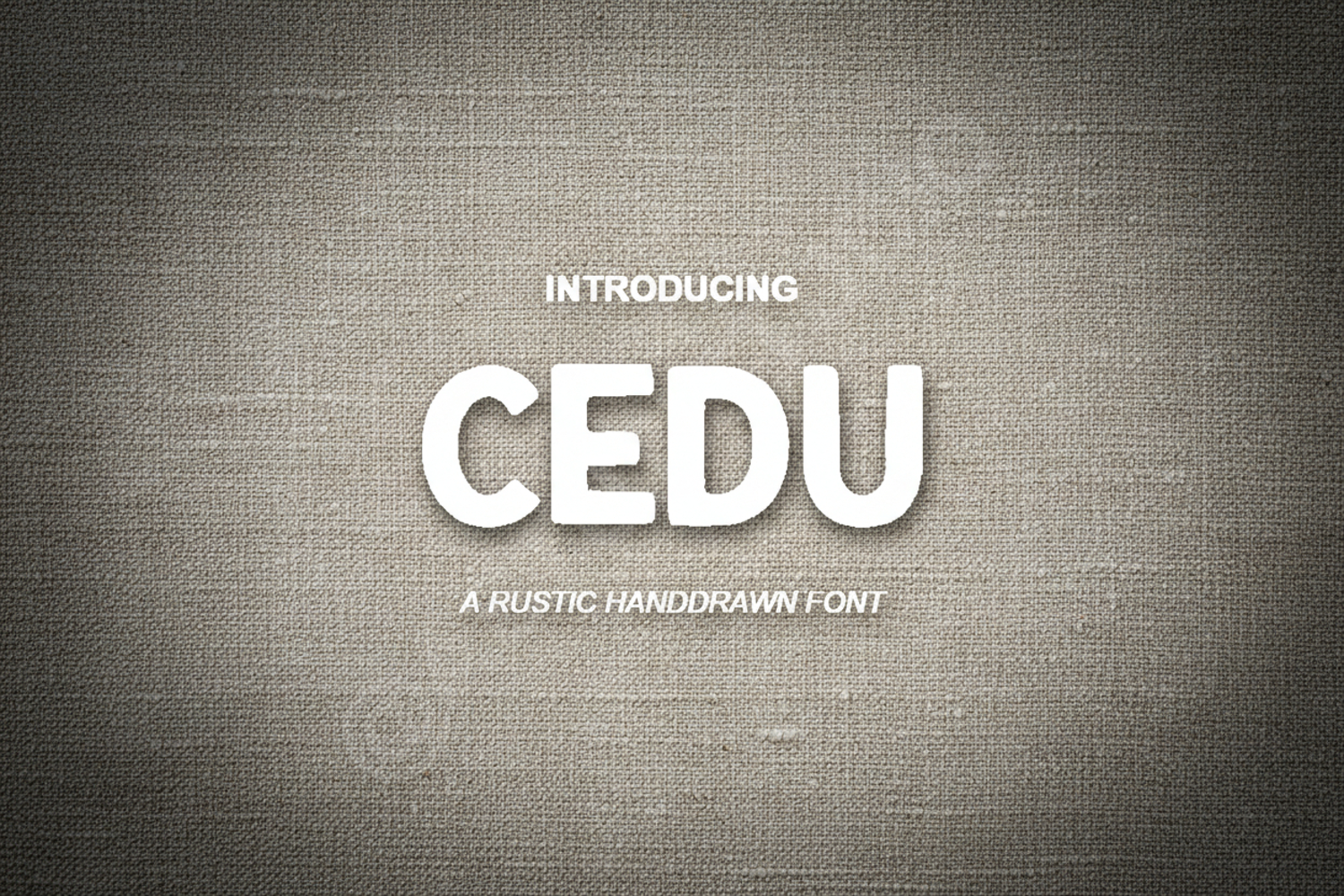
Cedu - Modern Minimalist Sans Serif Typeface
Cedu
Cedu is a premium sans serif typeface designed with a focus on modern minimalism and impeccable balance. Its clean lines and sophisticated proportions make it a versatile addition to any designer's toolkit, offering a professional aesthetic that elevates any creative project from standard to high-end.
- Branding and Identity: Perfect for creating memorable logos and corporate stationery.
- Editorial Design: Ideal for magazine layouts, lookbooks, and high-end brochures.
- Digital Content: Optimized for web headers, mobile apps, and social media graphics.
- Wedding Stationery: Adds a contemporary and clean touch to invitations and programs.
- Product Packaging: Creates a luxury feel for minimalist product labels and boxes.